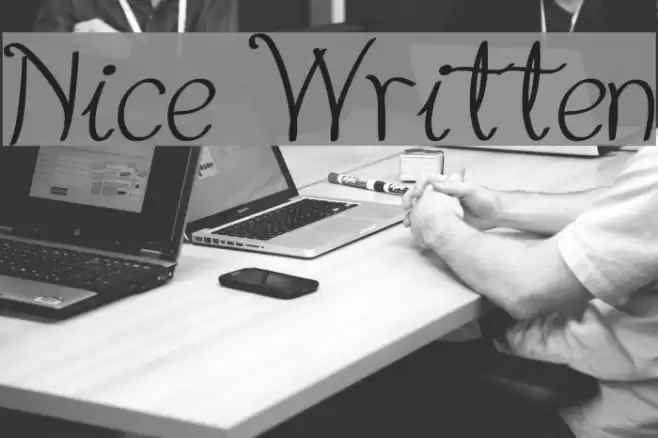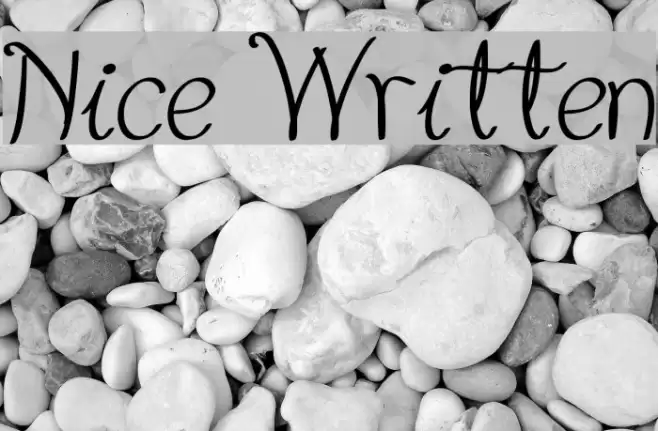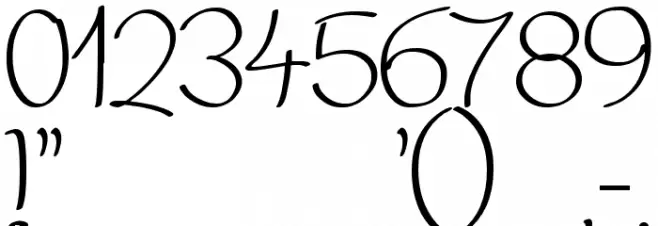
Nice Written Font
Nice Written Description
This font features a playful and elegant script style with a handwritten feel. The uppercase letters exhibit a graceful flow with subtle curves and loops, while the lowercase letters maintain a consistent, smooth appearance. The numerals are distinct and easy to read, complementing the overall aesthetic. Special characters are thoughtfully designed to match the font's whimsical nature. The strokes vary in thickness, adding a dynamic and lively touch to the text. This font is perfect for projects that require a personal and artistic touch, such as invitations, greeting cards, and creative branding.
A playful and elegant handwritten script font with dynamic strokes from Uncategorized fonts.
- Proposed Projects: Ideal for invitations, greeting cards, artistic branding, and creative projects.
- Use Case: Logos, Headlines, Artistic projects